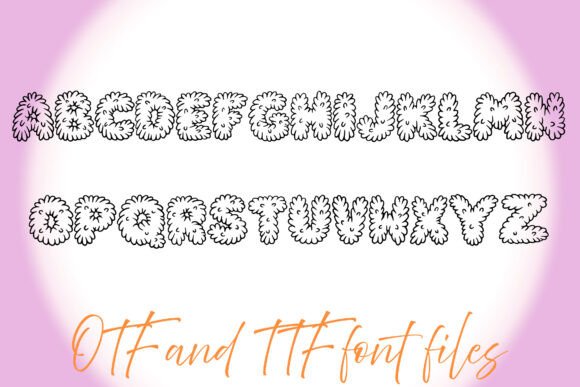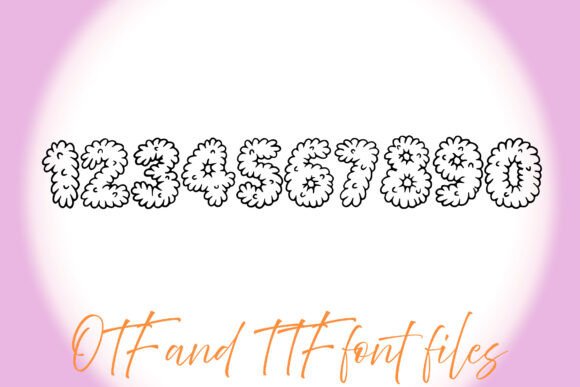
Introducing Fluffy Feather Font: The Ultimate Delight for Designers and Crafters
Are you tired of using the same old fonts for your children’s books, playful branding, and craft projects? Look no further! Fluffy Feather Font is here to add a touch of whimsy and personality to your designs. This soft, quirky, and delightful typeface is bursting with charm, making it the perfect addition to your font collection.
The Unique Charm of Fluffy Feather Font
What sets Fluffy Feather Font apart is its distinctive design, where each character is shaped like a poofy plume. This adorable feature gives your text a lighthearted and airy feel, perfect for projects that require a dash of playfulness. Imagine using this font for a children’s book title, a craft project’s signage, or even a whimsical logo – the possibilities are endless!
Ideal for Children’s Books and Playful Branding
Fluffy Feather Font is particularly well-suited for children’s books, as its fun and carefree design will instantly capture young readers’ attention. Whether you’re a self-published author or a professional publisher, this font will help bring your story to life and make it more engaging for kids. Additionally, for brands looking to establish a playful and youthful identity, Fluffy Feather Font can be a fantastic choice for logos, packaging, and marketing materials.
Dreamy Craft Projects and Beyond
Crafters and DIY enthusiasts, rejoice! Fluffy Feather Font is also perfect for a variety of craft projects, such as handmade cards, scrapbooking, and other paper crafts. Its dreamy, whimsical quality will add a personal touch to your creations, making them truly special and one-of-a-kind. Moreover, you can use this font for party invitations, DIY signage, and other decorative elements that require a touch of personality.
Why Choose Fluffy Feather Font?
- Unique and Eye-catching: Stand out from the crowd with a font that’s truly one-of-a-kind.
- Playful and Whimsical: Add a dash of fun and personality to your designs.
- Versatile: Suitable for a wide range of projects, from children’s books to craft projects and branding.
- Easy to Read: Despite its playful design, Fluffy Feather Font remains clear and easy to read.
Tips for Using Fluffy Feather Font
To make the most of Fluffy Feather Font, consider the following tips:
- Pair with Solids: Balance out the playfulness of Fluffy Feather Font by pairing it with solid, bold fonts for a striking contrast.
- Use in Headlines: Take advantage of the font’s attention-grabbing quality by using it for headlines and titles.
- Experiment with Colors: Fluffy Feather Font looks great in a variety of colors, so don’t be afraid to experiment and find the perfect hue for your project.
Fluffy Feather Font is a delightful addition to any designer’s or crafter’s toolkit. Its soft, quirky, and playful design makes it perfect for children’s books, playful branding, dreamy craft projects, and more. With its unique charm and versatility, this font is sure to bring a touch of whimsy and personality to your creations. So why wait? Give Fluffy Feather Font a try today and take your designs to new heights!